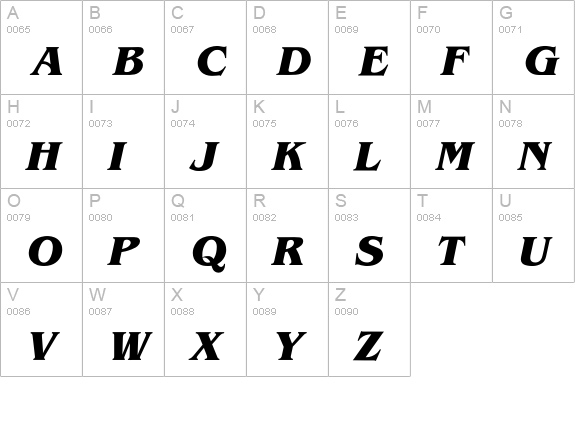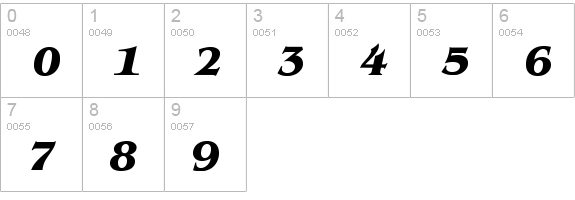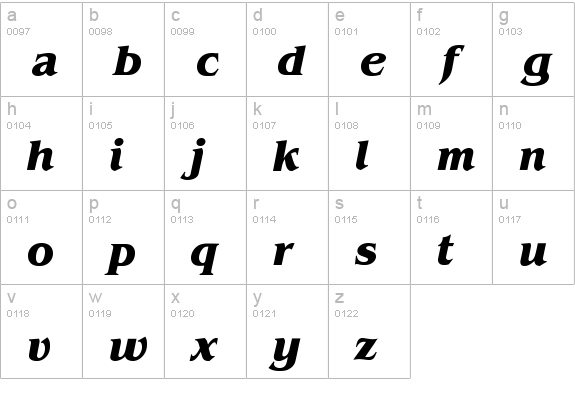
Benguiat* Bold Italic is a strong, high-contrast, italic variant in the Benguiat* typeface family \xE2\x80\x94 well suited to headlines, attention-grabbing titles, and strong calls-to-action.
Benguiat Bold Italic font is a striking and dynamic typeface that exudes elegance and sophistication. Its bold and italicized design commands attention and adds a touch of flair to any project. The distinct letterforms and unique styling make this font perfect for headlines, titles, and other display purposes. With its strong presence and eye-catching appearance, Benguiat Bold Italic effortlessly captures the essence of modern design. Best of all, this exceptional font is available for free download at FontsMarket.com. Whether you're looking to make a statement with your designs or simply add a touch of style, Benguiat Bold Italic is the perfect choice. Download it today and elevate your projects with this striking and versatile typeface.